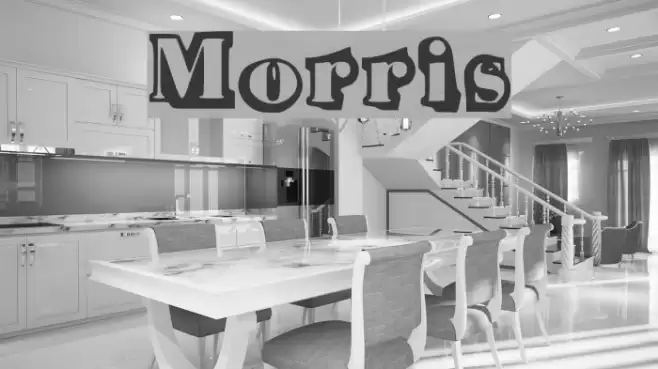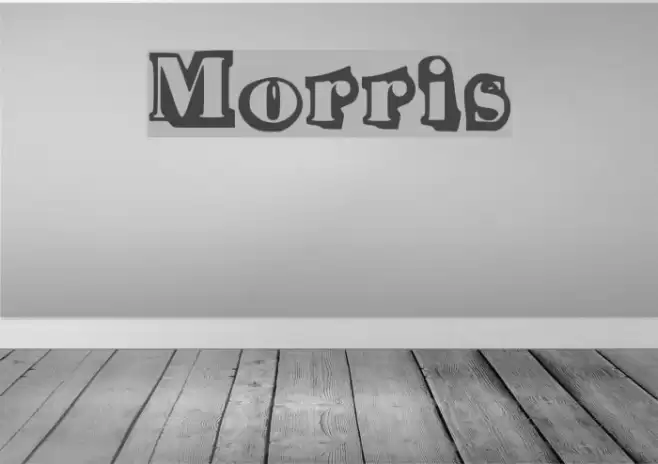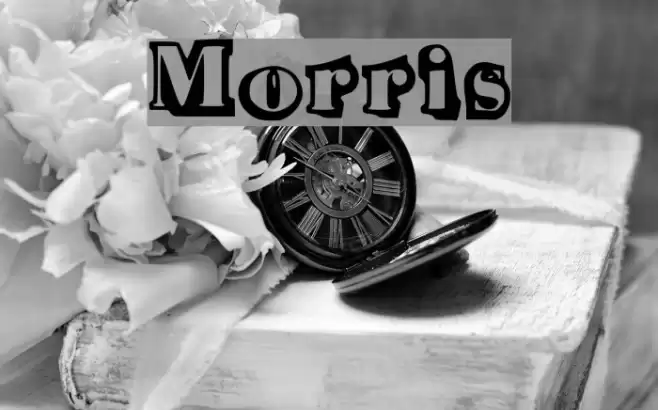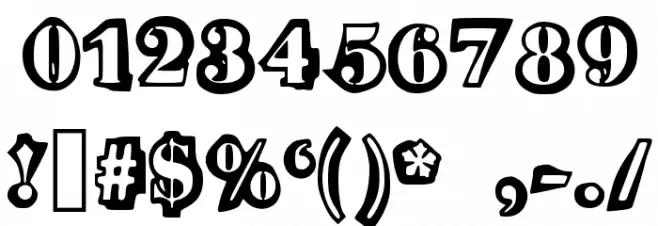
Morris Font
Morris Description
This font features a bold and playful style with a distinct three-dimensional effect. The characters are outlined with a thick shadow, giving them a standout appearance. The uppercase and lowercase letters maintain a consistent design, with rounded edges and a slightly condensed form. The numerals and special characters follow the same aesthetic, ensuring uniformity across all glyphs. This font's unique style makes it ideal for attention-grabbing designs.
A bold, playful font with a three-dimensional shadow effect from Uncategorized fonts.
- Proposed Projects: Ideal for posters, children's book covers, playful branding, and eye-catching headlines.